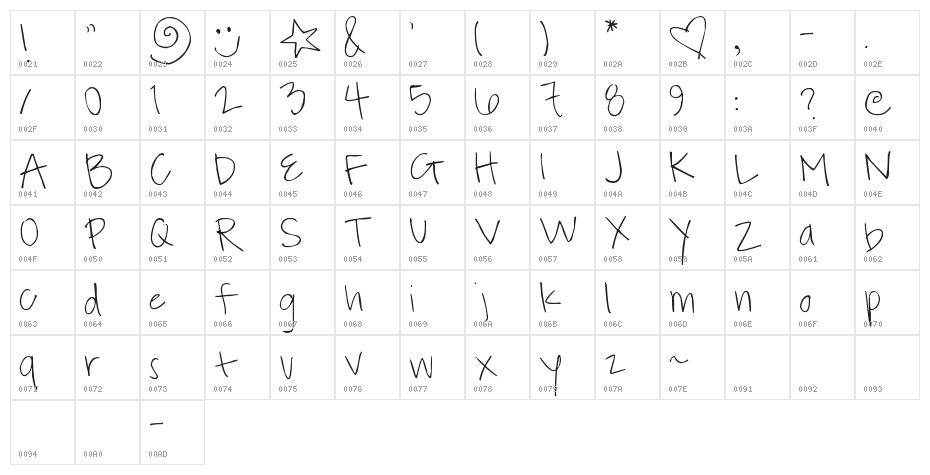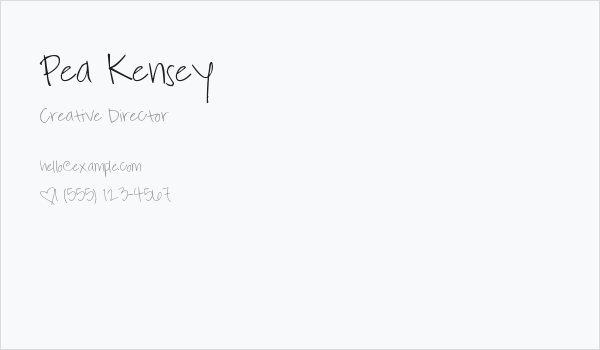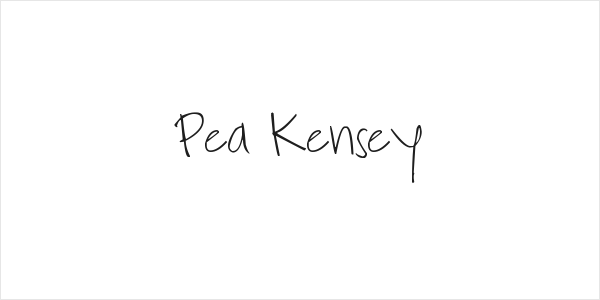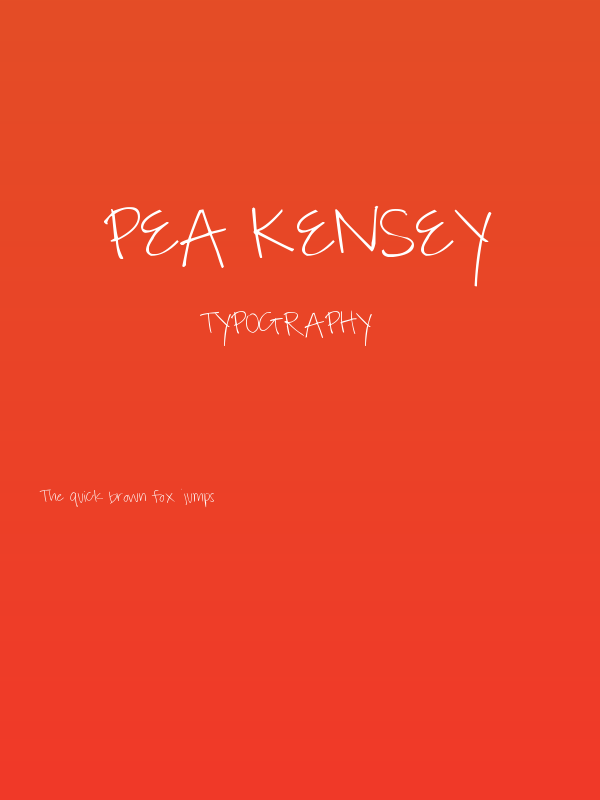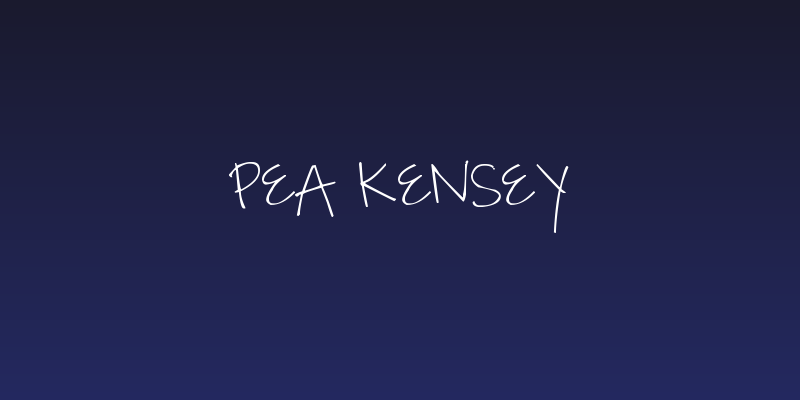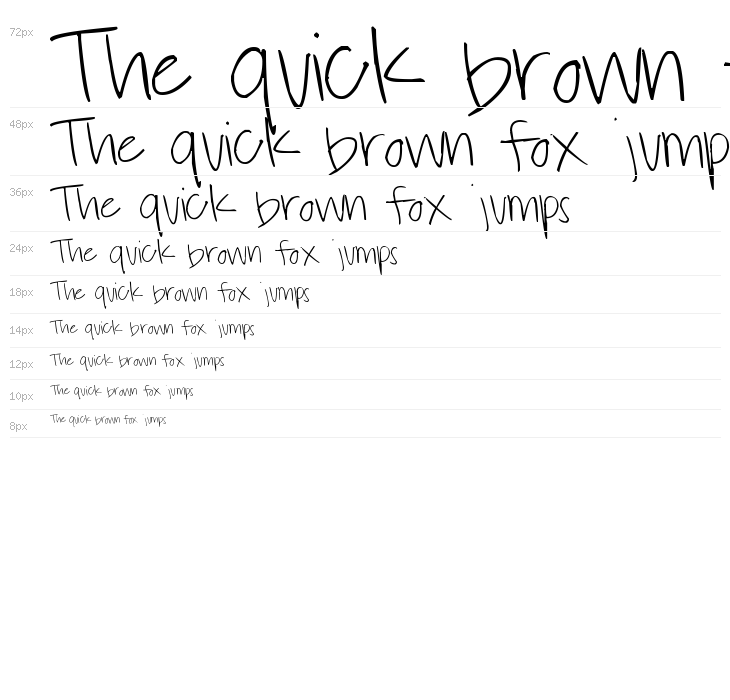
Pea Kensey Font
Pea Kensey Description
This playful and whimsical font features a handwritten style with a casual, informal appearance. The letters are slightly irregular, giving it a personal touch that mimics natural handwriting. The strokes are smooth and fluid, with a consistent line weight that adds to its approachable and friendly feel. The characters are well-spaced, maintaining readability while preserving the font's unique charm. The inclusion of special characters like stars and swirls enhances its decorative appeal, making it suitable for creative and fun projects.
| Use Case | Logos, Invitations, Posters |
| Proposed Projects | Ideal for greeting cards, children's books, playful branding, and personal projects that require a friendly and informal touch. |